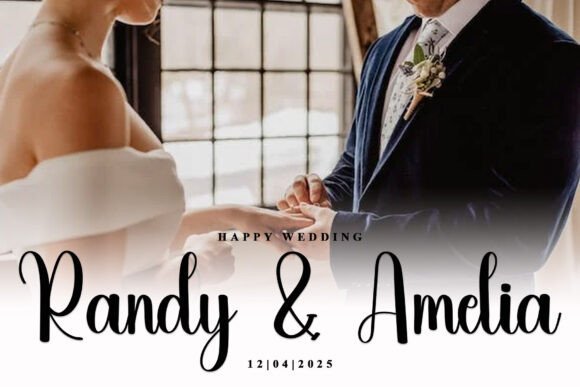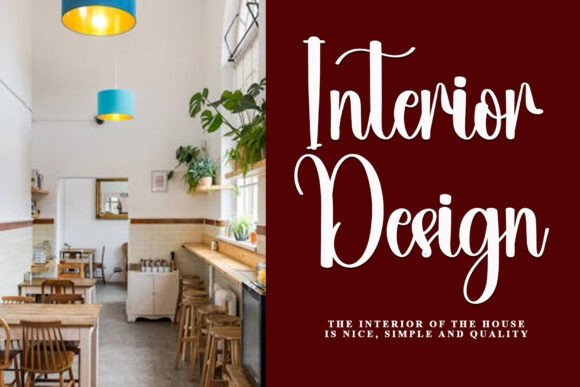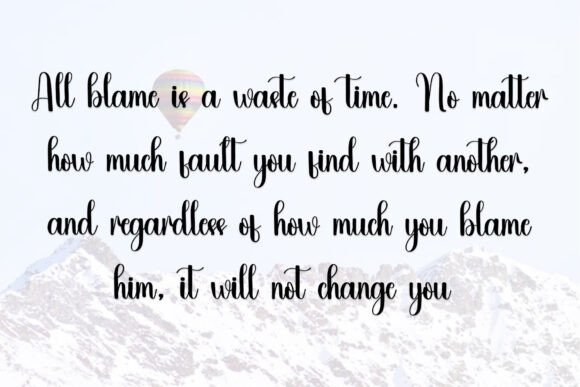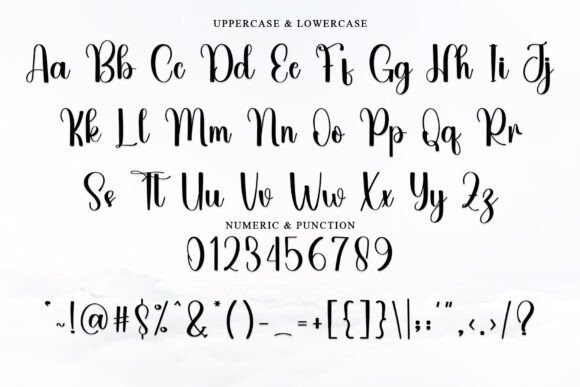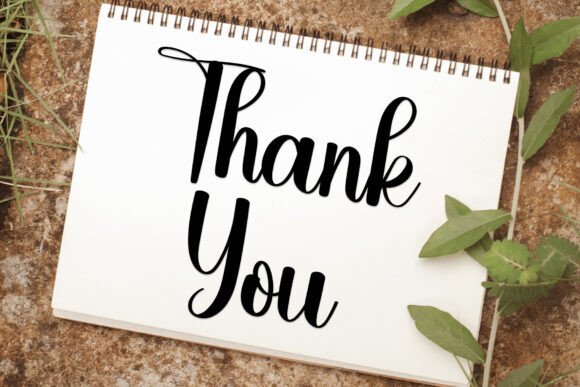
Discover the Elegance of Digital Font: Elevate Your Designs to New Heights
In the world of typography, a font can make all the difference in the aesthetic and effectiveness of a design project. For designers and crafters seeking a touch of sophistication and modernity, the Digital font is an exquisite choice. This beautifully crafted handwritten font combines classic calligraphic influences with a contemporary edge, making it a versatile and stylish addition to any creative endeavor.
The Essence of Digital Font
Digital is more than just a font; it’s a design statement. Its classy, calligraphic roots provide a sense of tradition and elegance, while its modern twists ensure it feels fresh and current. This unique blend makes Digital an ideal choice for projects where making a lasting impression is paramount. Whether you’re working on a branding campaign, a website design, or crafting beautiful stationery, Digital font brings a level of sophistication that can elevate your work to new heights.
Why Choose Digital Font?
- Versatility: Digital font’s versatility is one of its most compelling features. Its elegant strokes and modern feel make it suitable for a wide range of applications, from luxury branding to personal stationery.
- Legibility: Despite its intricate and artistic design, Digital maintains excellent legibility, ensuring that your message is conveyed clearly and effectively.
- Uniqueness: In a sea of generic fonts, Digital stands out with its distinctive character. Using it can help your project differentiate itself and leave a memorable impression on your audience.
- Contemporary Appeal: The font’s contemporary edge ensures that your designs feel modern and relevant, appealing to audiences who appreciate current trends.
Applications of Digital Font
The possibilities are endless with Digital font. Here are a few ideas to get you started:
- Branding and Logos: Create a lasting first impression with a logo that exudes elegance and sophistication.
- Website Design: Enhance your website’s aesthetic with a font that combines style and readability.
- Stationery and Invitations: Add a touch of class to your personal or business stationery, and make your invitations stand out.
- Packaging: Elevate your product packaging with a design that reflects the quality and elegance of your brand.
- Social Media Graphics: Stand out on social media with eye-catching graphics that showcase your brand’s personality.
Tips for Using Digital Font Effectively
To maximize the impact of Digital font in your designs, consider the following tips:
- Pair it with Simplicity: Let Digital font be the focal point of your design by pairing it with simpler fonts or backgrounds.
- Experiment with Sizes: Play with different font sizes to create visual hierarchy and emphasize key messages.
- Color Matters: Choose colors that complement the elegant feel of Digital font, such as neutral tones or rich jewel tones.
- Be Mindful of Legibility: Ensure that your chosen color scheme and background do not compromise the font’s legibility.
Digital font is a masterpiece of modern typography, offering designers and crafters a tool to bring their projects to the highest levels of aesthetic excellence. Its unique blend of calligraphic elegance and contemporary freshness makes it an invaluable asset for anyone looking to make a statement with their designs. Whether you’re aiming for luxury, elegance, or simply a design that stands out, Digital font is sure to exceed your expectations.